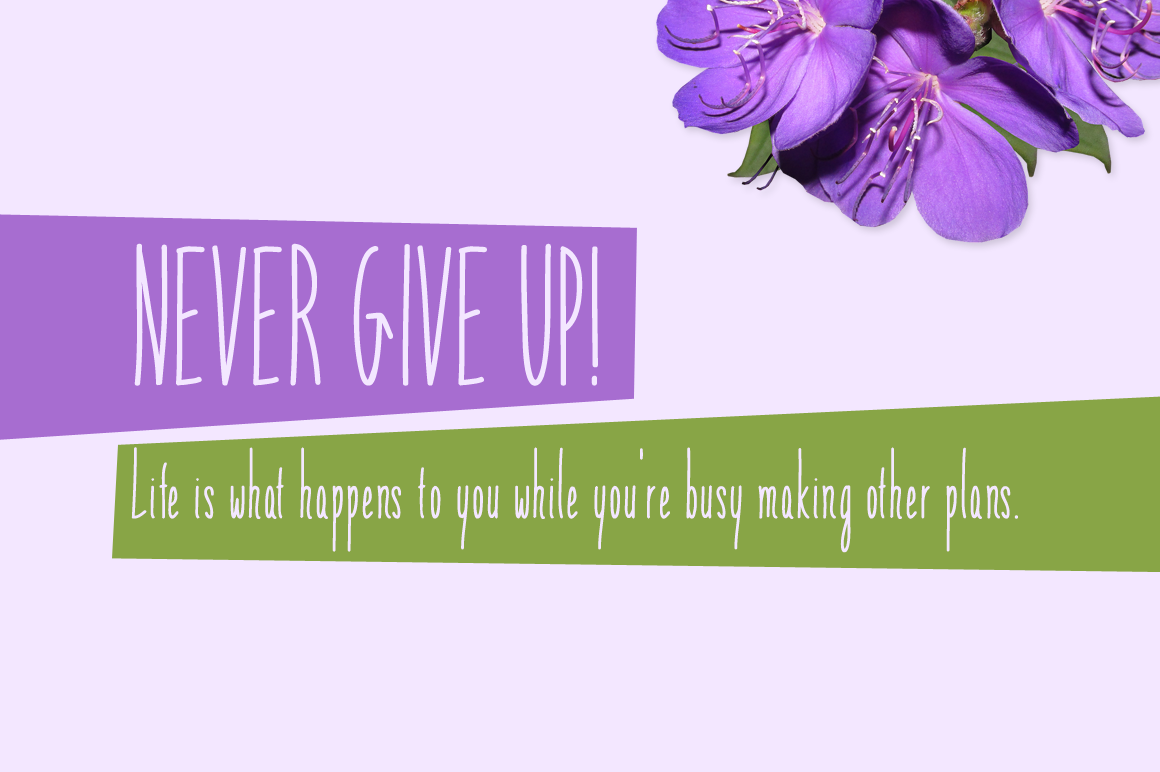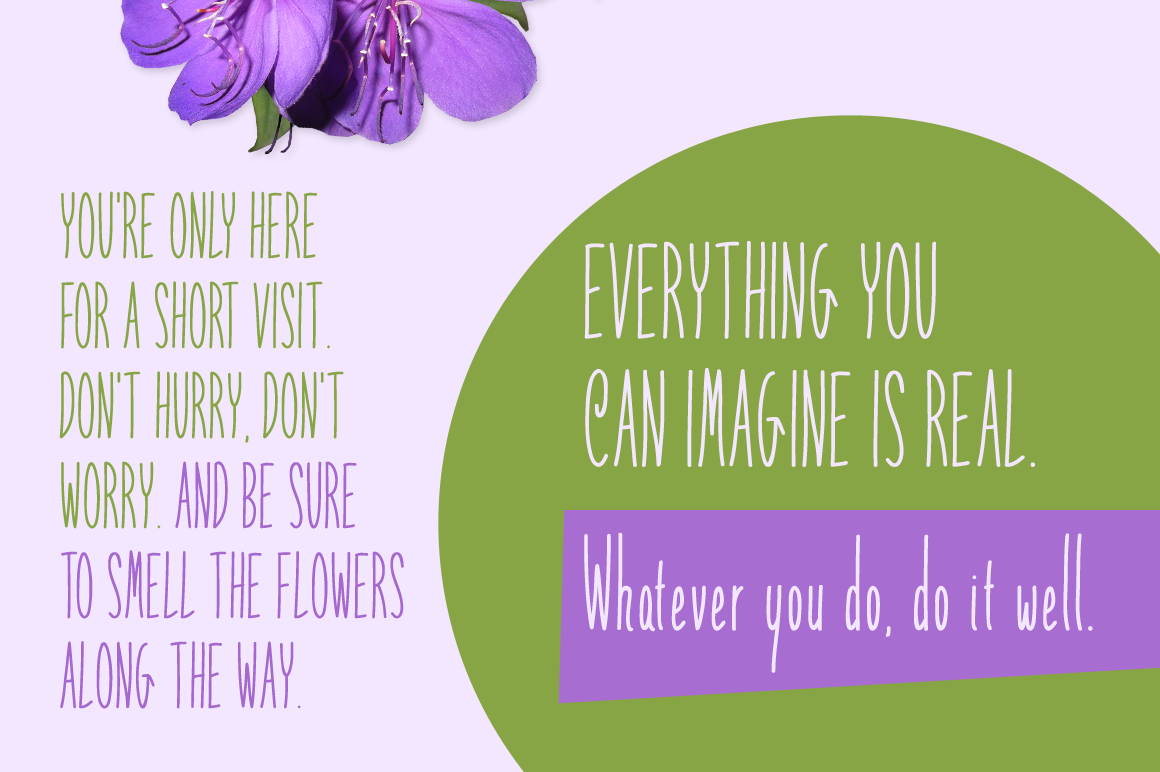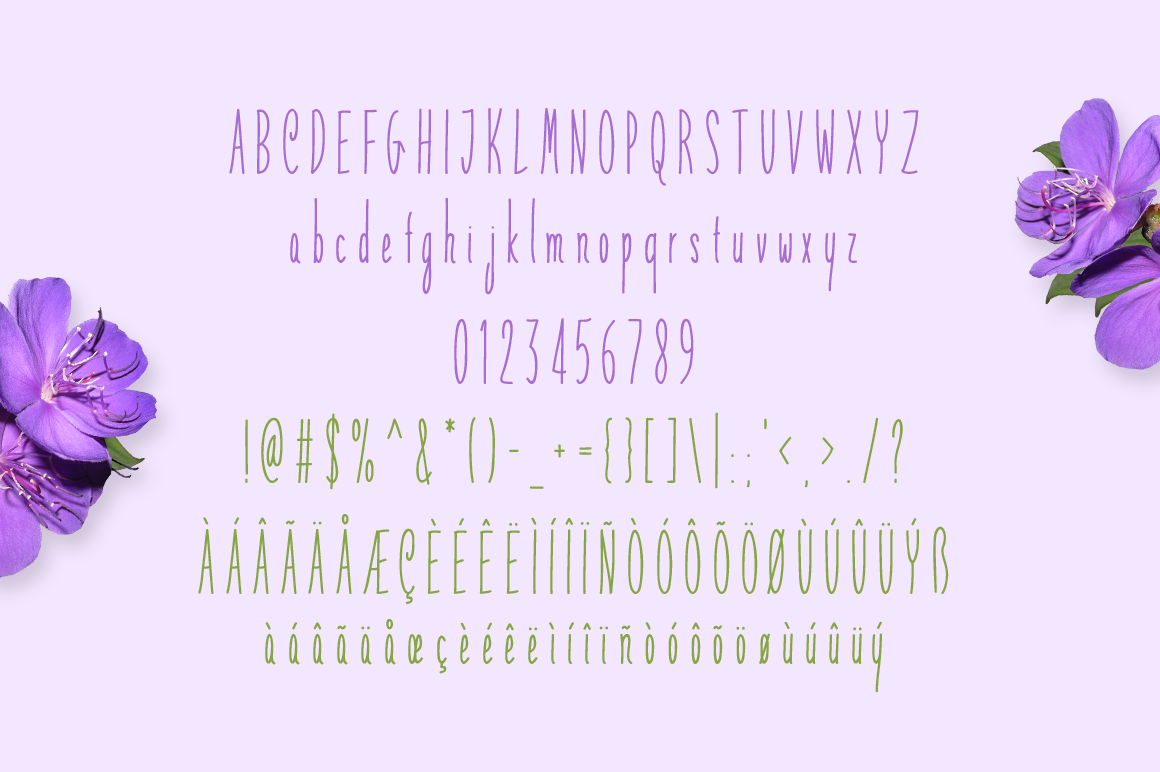
Introduction to Queenship Font
Have you ever been working on a creative project, and suddenly, the perfect font pops into your mind? For designers, this moment of clarity can make all the difference between a good design and a great one. For me, that moment came when I discovered the Queenship Font – a elegant and playful typeface that has been a game-changer in my design workflow.
What I love about Queenship Font is its versatility. It’s perfect for a wide range of designs, from elegant invitations to creative digital products. With its high-quality design and transparent background, it’s a valuable resource for any designer looking to elevate their work. And the best part? It’s available for free download, making it an accessible design resource for creatives of all levels.
Key Features of Queenship Font
- High-quality font designed for creative projects, offering a unique touch to your designs.
- Features a transparent background, making it ideal for overlaying on images or other design elements.
- Includes a comprehensive character set, covering a wide range of languages and alphabets.
- Designed at a high resolution of 300 DPI, ensuring crisp and clear display on various devices and screens.
- Perfect for use in various design projects, from branding and advertising to digital art and creative writing.
Honest Review: Queenship Font
As a designer, I’m always on the lookout for high-quality fonts that can elevate my creative projects. The Queenship Font caught my attention, and I decided to give it a try. Here’s my honest review.
- ✨ Elegant and sophisticated design aesthetic that’s perfect for luxury brands and high-end projects
- ✨ Clear and legible font that’s great for body text and headings
- ⚠️ Limited font weights and styles, which may not be ideal for complex projects
- ⚠️ Not ideal for projects with transparent backgrounds, as the font may not display well
Overall, I’m impressed with the Queenship Font, and I think it’s a great design resource for any creative project. While it may have some limitations, its elegant design and free download option make it a valuable addition to any designer’s toolkit.
Tips for Getting the Most Out of Queenship Font
For the best results, use Queenship Font in conjunction with a high-quality design software and a transparent background. Experiment with different font sizes, colors, and styles to find the perfect combination for your creative project.
Queenship Font is commonly used in creative projects such as graphic design, logo creation, and typography-based art. Its elegant design and high quality make it a valuable design resource for any project that requires a sophisticated and professional look.
Alternatives to Queenship Font
The Great Vibes Font is a high-quality, elegant script font perfect for creative projects that require a touch of sophistication. It features a transparent background, making it ideal for overlaying on images or using as a standalone font. Great Vibes is a free download, making it an excellent design resource for designers on a budget. It compares to Queenship Font in its elegant and refined feel, but has a more open and airy texture.
The Alex Brush Font is a beautiful, handwritten font that is perfect for designers looking to add a personal touch to their creative project. It features a transparent background and a high-quality design that makes it suitable for a wide range of applications. Alex Brush is a free download, but be aware that it may not be suitable for commercial use. It compares to Queenship Font in its elegant and refined feel, but has a more fluid and expressive texture.